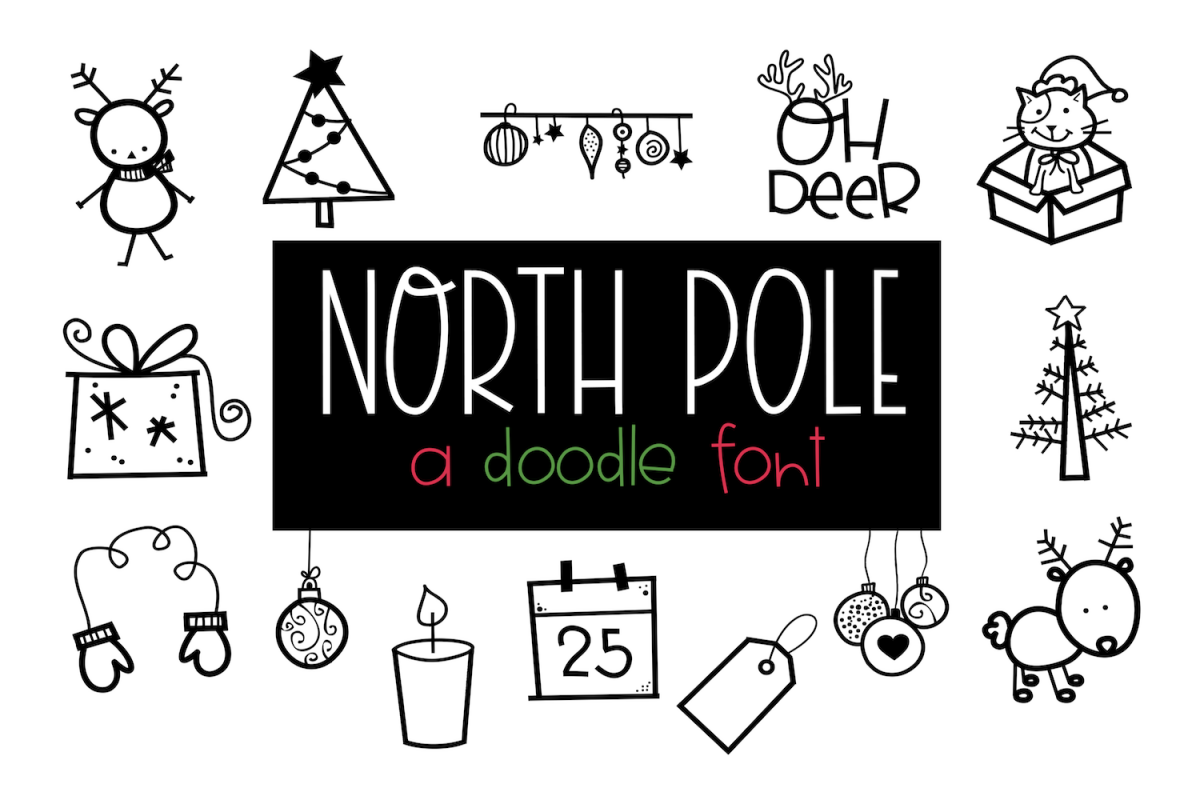
North Pole - A Christmas / Winter Doodles Font
North Pole is a doodle (dingbat) font.
It includes 52 hand-drawn, Christmas/winter doodles.
Instead of a letter showing up, a small doodle will!
You can resize the doodle, color the doodle and add text to the doodles!